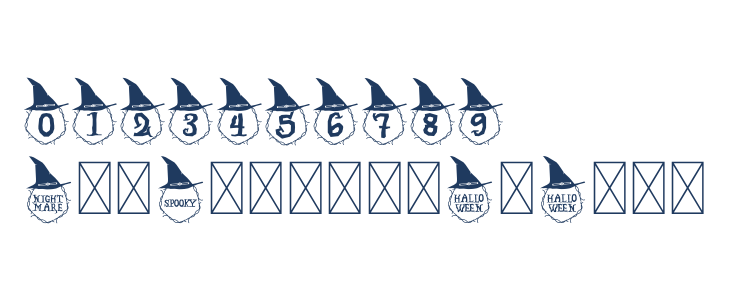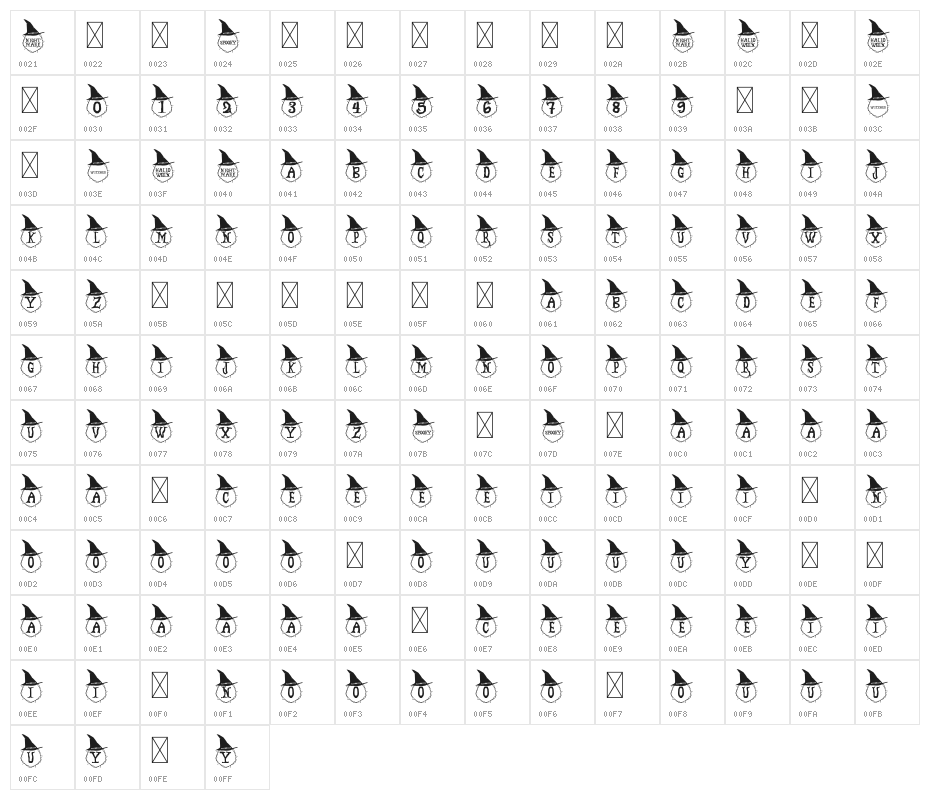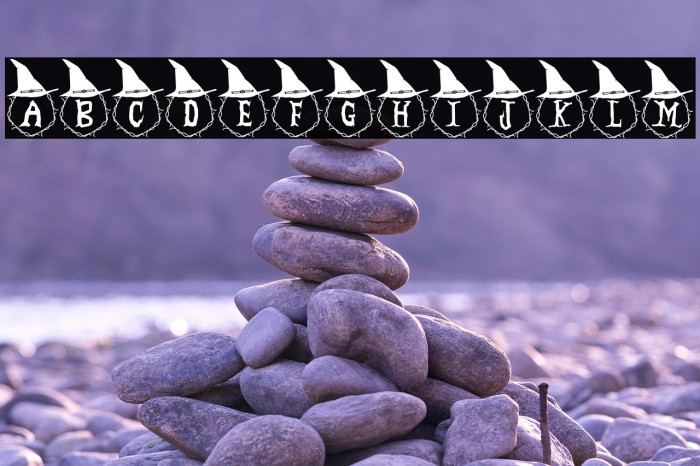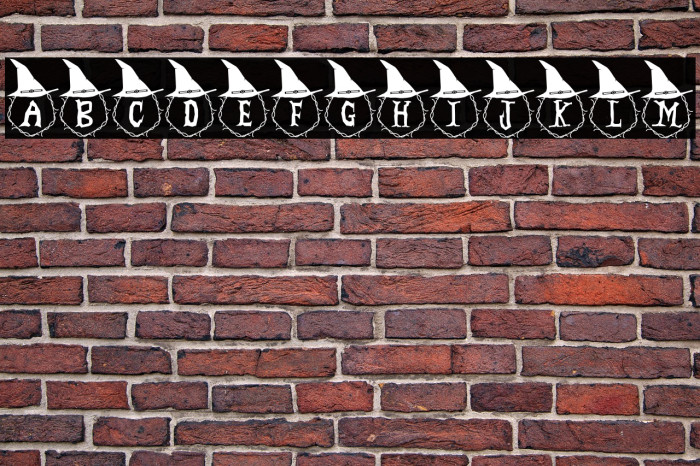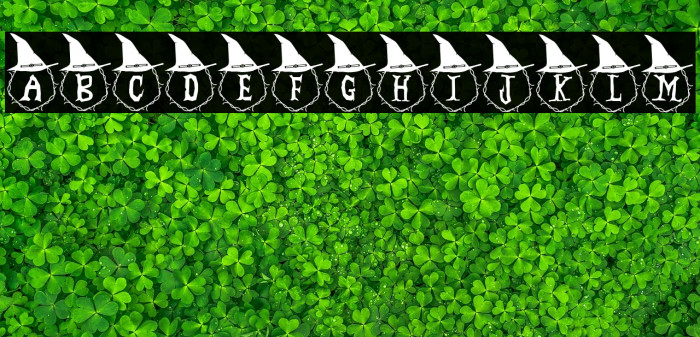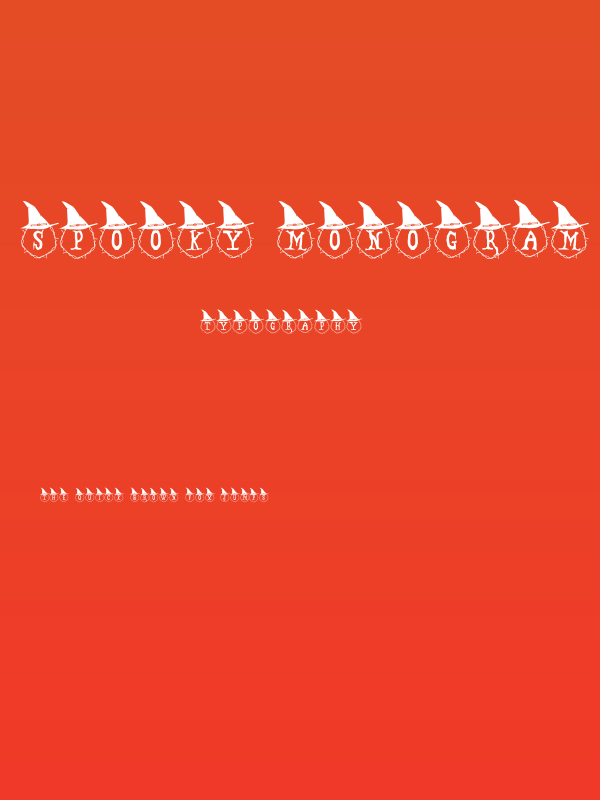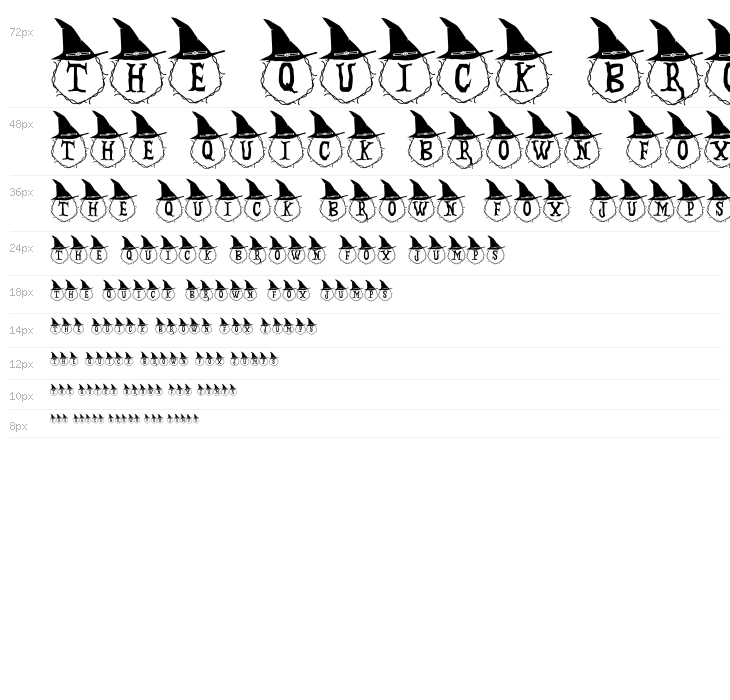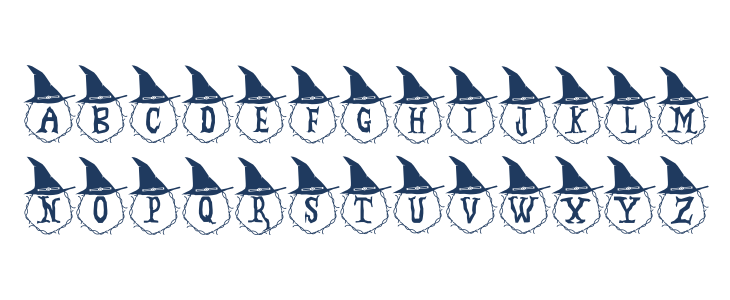
Spooky Monogram Font
Spooky Monogram Description
This font features a whimsical and spooky design, perfect for Halloween-themed projects. Each character is encased in a circular frame with a witch's hat on top, adding a playful yet eerie touch. The letters and numbers are bold and clear, making them easily readable despite the decorative elements. The style is consistent across uppercase and lowercase letters, as well as numbers, ensuring a cohesive look. The special characters maintain the same theme, enhancing the overall spooky aesthetic. This font is ideal for creating eye-catching designs that require a touch of Halloween spirit.
| Use Case | Headlines, Logos, Decorative text |
| Proposed Projects | Ideal for Halloween party invitations, themed posters, greeting cards, and decorative banners. |